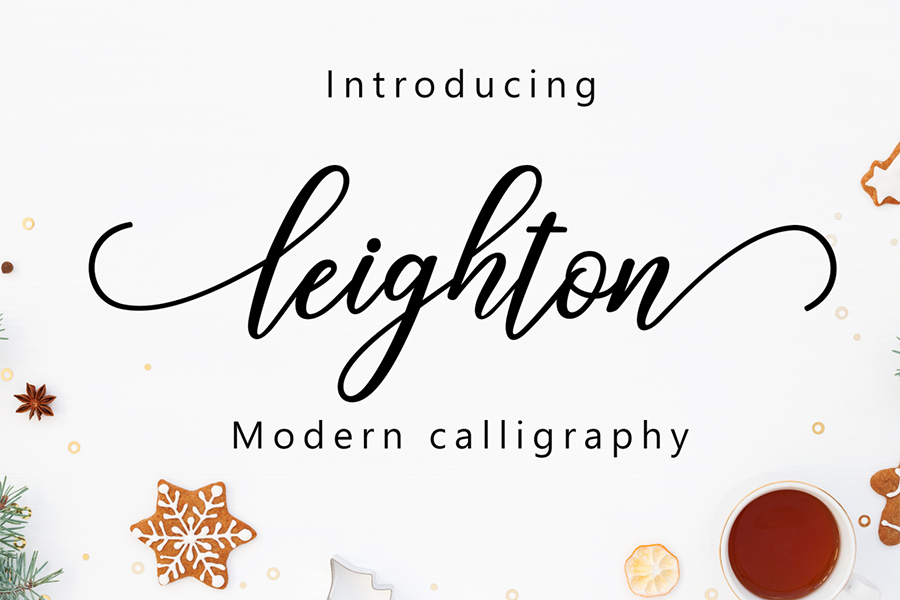
Leighton Handlettering Font
Leighton Handlettering Font is a handmade brush style typeface. This script is appear to combine perfectly and allow you to create stunning hand-lettering quick and easy. With it’s fine flow and slim stylish lines, the font will be a perfect choice to add softness and style to your design. Hence, this typeface is perfect for branding, poster and other display design purposes.